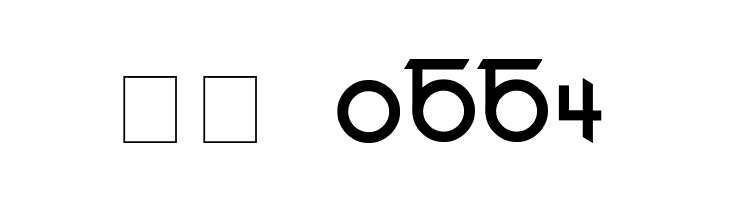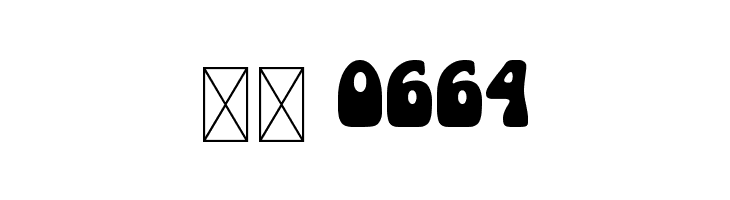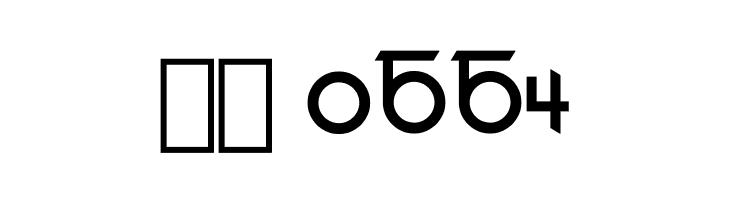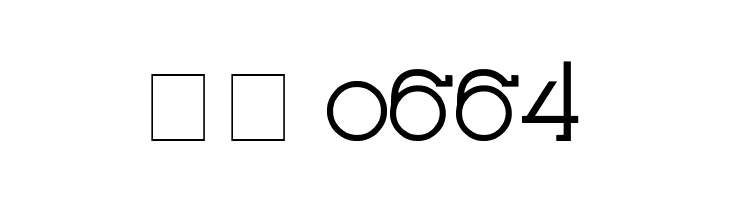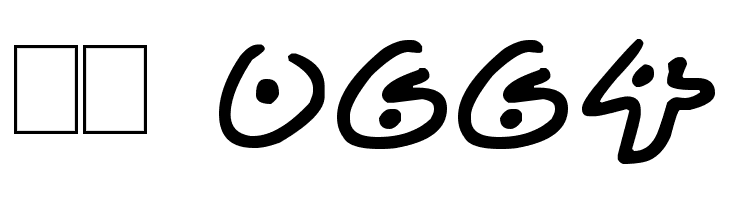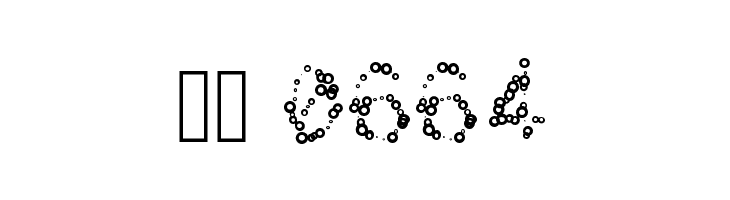
A playful, decorative font with bold, bubble-like letters and a cartoonish style.
A bold, expressive script font with a lively, handwritten style.
A playful, bold outline font with a cartoonish and dynamic style.
A bold, decorative font with geometric and Sanskrit-inspired elements.
A bold, geometric font with a decorative, Sanskrit-inspired style.
A geometric and decorative font inspired by traditional Sanskrit script with modern elements.
A bold, geometric font with a modern and elegant style.
A modern, geometric font with clean lines and a bold appearance.
A modern, geometric font with clean lines and uniform stroke width.
A playful, circle-based decorative font with a whimsical and artistic style.
A playful and elegant script font with flowing curves and a handwritten style.
A playful and elegant script font with decorative loops and a hand-drawn aesthetic.
A playful, energetic script font with bold, flowing cursive letters.
A playful, bold font with rounded, bubbly forms perfect for retro-themed designs.
A playful, bold font with curvy, whimsical letterforms.
A playful, hand-drawn font with bold, rounded characters.
A playful, handwritten script font with a whimsical and friendly style.
A playful, hand-drawn script font with whimsical embellishments.
A bold, playful handwritten font with thick strokes and an informal style.
A bold, playful handwritten font with a lively and energetic style.
A playful and bold font with rounded and angular elements, perfect for lively designs.
A playful, bold font with a whimsical, hand-drawn style.
A decorative script font with elegant, flowing letterforms and ornate details.
A playful, handwritten font with smooth, rounded strokes and a casual vibe.
A playful, handwritten-style font with bold, rounded characters.
A bold, expressive script font with dynamic slant and high contrast.
A dynamic and elegant script font with fluid strokes and a slight slant.
A futuristic, minimalist font with geometric shapes and consistent stroke width.
A casual, handwritten font with bold, consistent strokes and a playful appearance.
A casual, handwritten font with a lively and informal style.
An elegant script font with flowing, ornate letters and decorative flourishes.